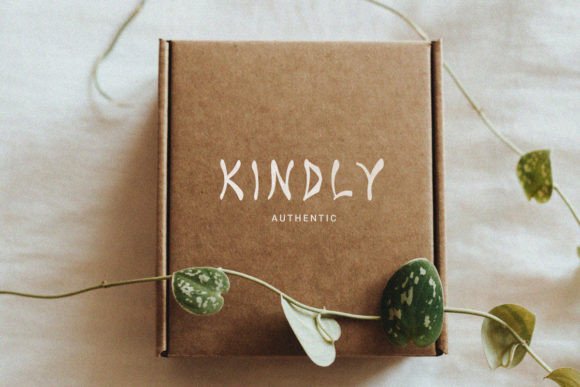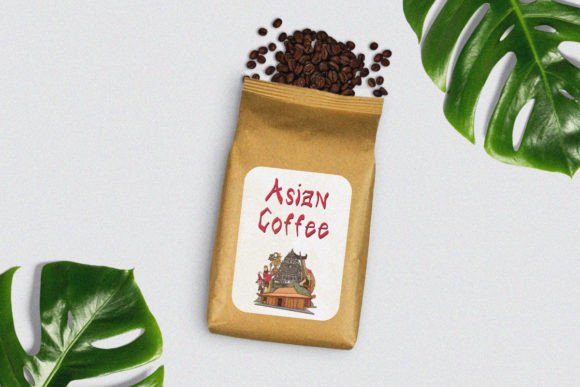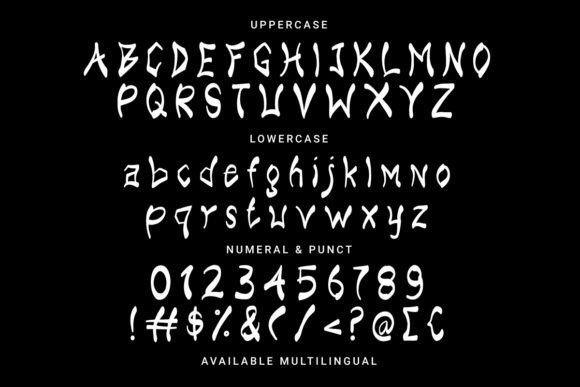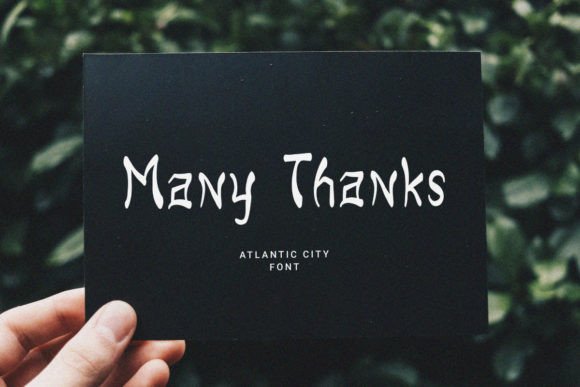
Discover the Elegance of Atlantic City Font: A Mandarin Style Display Font
Are you looking for a font that can add a touch of elegance and dynamism to your design projects? Look no further than the Atlantic City Font, a stunning mandarin style display font that will transport you to the vibrant culture of East Asia. In this article, we’ll explore the features and benefits of this beautiful font, and why it’s a must-have for designers and crafters.
What is Atlantic City Font?
Atlantic City Font is a carefully crafted mandarin style display font that exudes a sense of sophistication and refinement. Its unique design is inspired by the rich cultural heritage of East Asia, making it perfect for projects that require a touch of exotic elegance. Whether you’re working on a branding project, a website, or a craft project, this font is sure to make a lasting impression.
Key Features of Atlantic City Font
- Dynamic and Elegant Design: The Atlantic City Font features a dynamic and elegant design that is sure to capture the attention of your audience. Its unique strokes and curves create a sense of movement and energy, making it perfect for headlines, titles, and other display text.
- Mandarin Style Inspiration: The font’s design is inspired by the traditional mandarin style of East Asia, giving it a distinctive and exotic flair. This makes it perfect for projects that require a touch of cultural authenticity.
- High Versatility: The Atlantic City Font is highly versatile and can be used in a variety of design projects, from branding and advertising to web design and crafting.
- Easy to Read: Despite its ornate design, the Atlantic City Font is surprisingly easy to read, making it perfect for use in body text as well as display text.
Benefits of Using Atlantic City Font
So why should you choose the Atlantic City Font for your design projects? Here are just a few benefits of using this amazing font:
- Adds Cultural Authenticity: The Atlantic City Font’s mandarin style inspiration adds a touch of cultural authenticity to your designs, making it perfect for projects that require a sense of exotic elegance.
- Creates a Lasting Impression: The font’s dynamic and elegant design is sure to create a lasting impression on your audience, making it perfect for headlines, titles, and other display text.
- Versatile and Adaptable: The Atlantic City Font is highly versatile and can be used in a variety of design projects, from print to digital.
How to Use Atlantic City Font in Your Projects
Using the Atlantic City Font in your design projects is easy. Here are a few tips to get you started:
- Pair it with Other Fonts: The Atlantic City Font pairs well with other fonts, making it easy to create a unique and harmonious design.
- Use it for Headlines and Titles: The font’s dynamic and elegant design makes it perfect for use in headlines and titles.
- Experiment with Different Sizes and Colors: The Atlantic City Font looks great in a variety of sizes and colors, so don’t be afraid to experiment and find the perfect look for your project.
| Font Name | Atlantic City Font |
| Author | Wisnoetype Co |
In conclusion, the Atlantic City Font is a stunning mandarin style display font that is sure to add a touch of elegance and dynamism to your design projects. With its unique design, high versatility, and ease of use, it’s a must-have for designers and crafters. So why wait? Add the Atlantic City Font to your projects today and experience the beauty and elegance of East Asian culture.